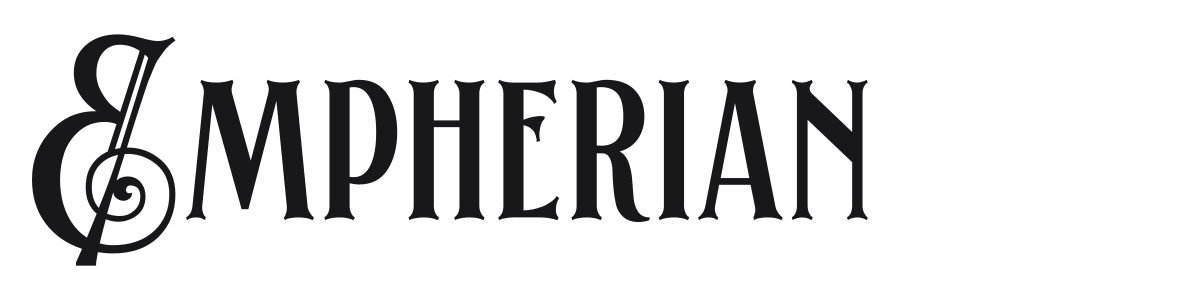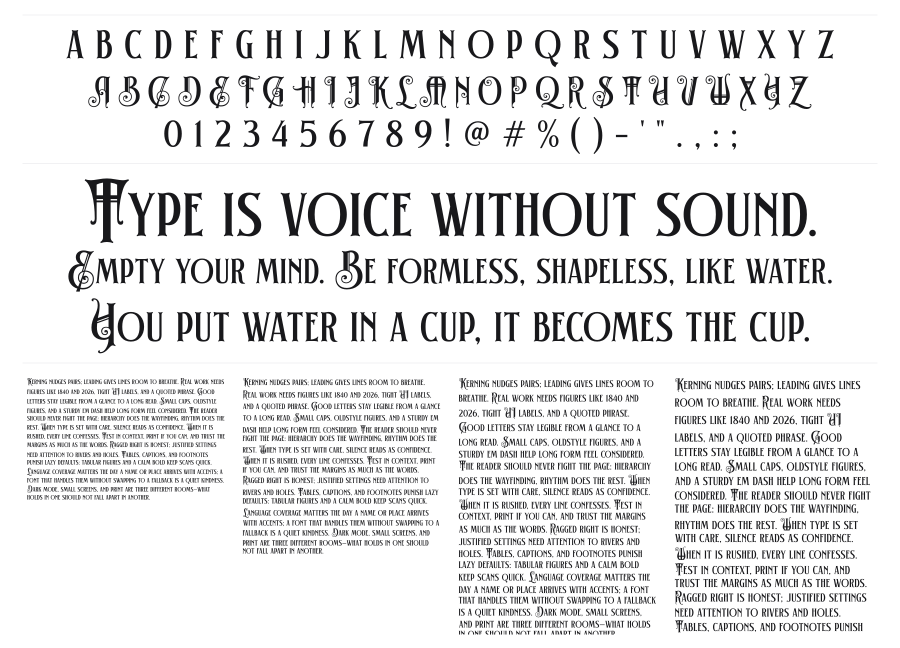
Empherian
Empherian is a condensed decorative serif with extreme stroke contrast and tall, narrow proportions drawn from Art Deco typographic traditions. The dramatic interplay between heavy verticals and hairline-thin horizontals gives it a sharp, commanding presence at large sizes. It sits comfortably alongside high-end fashion, editorial mastheads, and luxury branding.